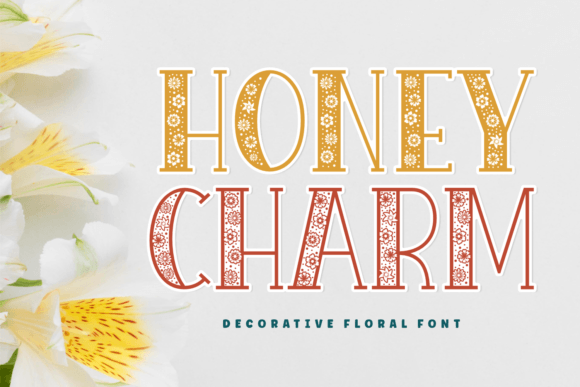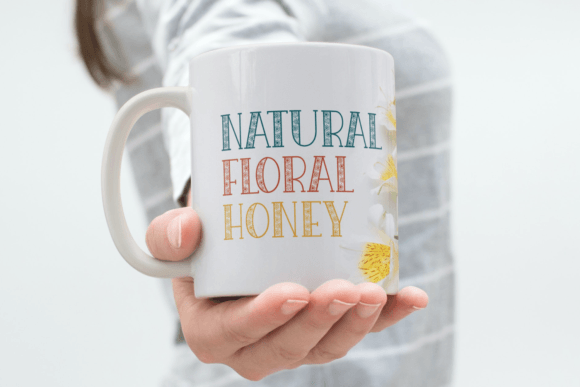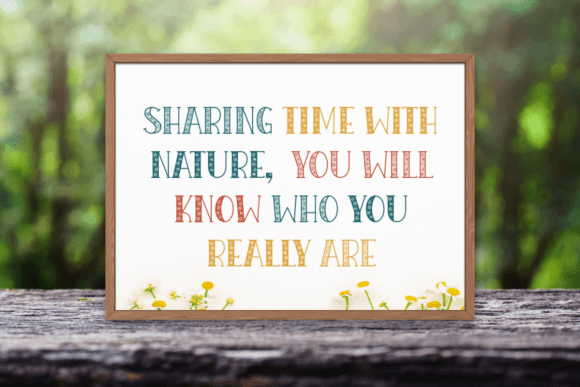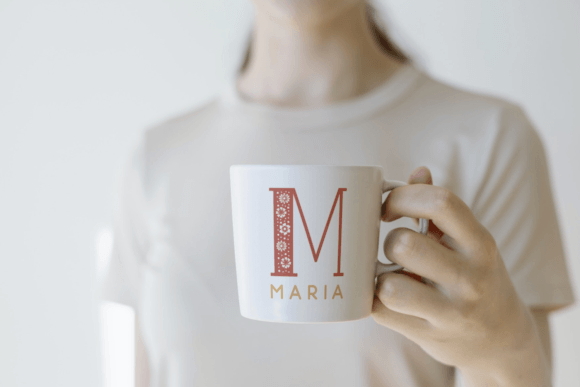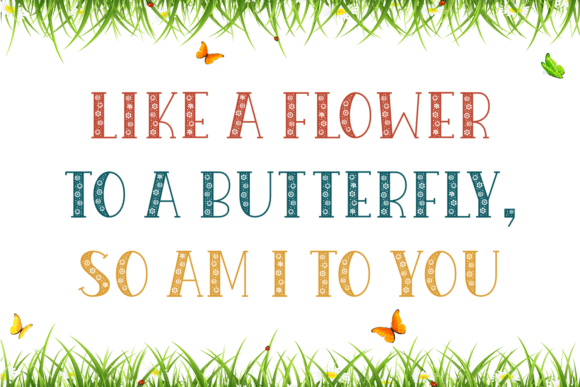
Discover the Sweetness of Honey Charm Font
Have you ever stumbled upon a font that makes your heart skip a beat? For me, it was the moment I laid eyes on Honey Charm Font – its delicate curves and whimsical charm instantly won me over. I couldn’t help but imagine the beautiful wedding invitations, adorable greeting cards, and eye-catching social media posts I could create with this sweet font.
Honey Charm Font is a versatile decorative font designed to add a touch of sweetness to any design project. Whether you’re a seasoned designer or a creative enthusiast, this font is sure to become your new favorite companion. Its versatility and charm make it an invaluable asset for any design toolbox, allowing you to create stunning graphics, cards, and more with ease.
Honey Charm Font Key Features
- Font Family: Honey Charm is a unique, hand-drawn font designed to evoke a sense of warmth and elegance.
- Unique Characteristics: Features a distinctive, hand-crafted look with intricate details and subtle texture, making it perfect for creative projects and branding materials.
- Font Style: Honey Charm comes in 2 font styles – Regular and Script – offering versatility for various design applications.
Honey Charm Font Review
I recently had the chance to work with the Honey Charm font, and I must say it’s a delightful addition to any design project ✨. The font’s unique blend of vintage and whimsical elements makes it perfect for creating eye-catching headlines and titles.
- ✨ The font’s playful, handwritten feel adds a touch of personality to any design.
- ✨ The Honey Charm font is highly customizable, allowing you to adjust the weight, spacing, and other properties to fit your design needs.
However, there are a few limitations to consider ⚠️:
- ⚠️ The font may not be suitable for body text, as it can be difficult to read in certain contexts.
- ⚠️ The font’s customizability can also make it overwhelming to work with, especially for designers who prefer a more straightforward design process.
Overall, I would give the Honey Charm font 4 out of 5 stars. It’s a great choice for designers who want to add a touch of personality to their projects, but may not be the best fit for every design need. With a bit of experimentation and practice, however, the Honey Charm font can be a valuable addition to any designer’s toolkit.
For optimal results, use the Honey Charm Font in conjunction with a bold or cursive font for maximum visual impact.